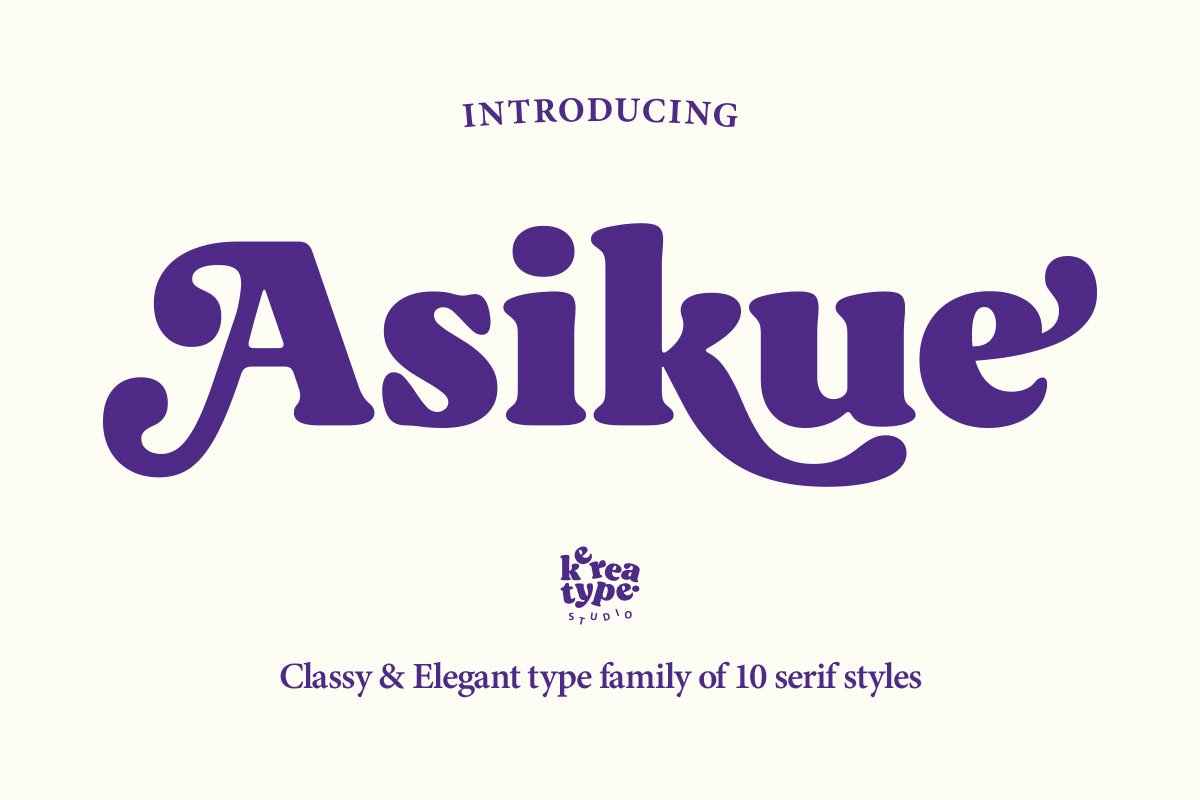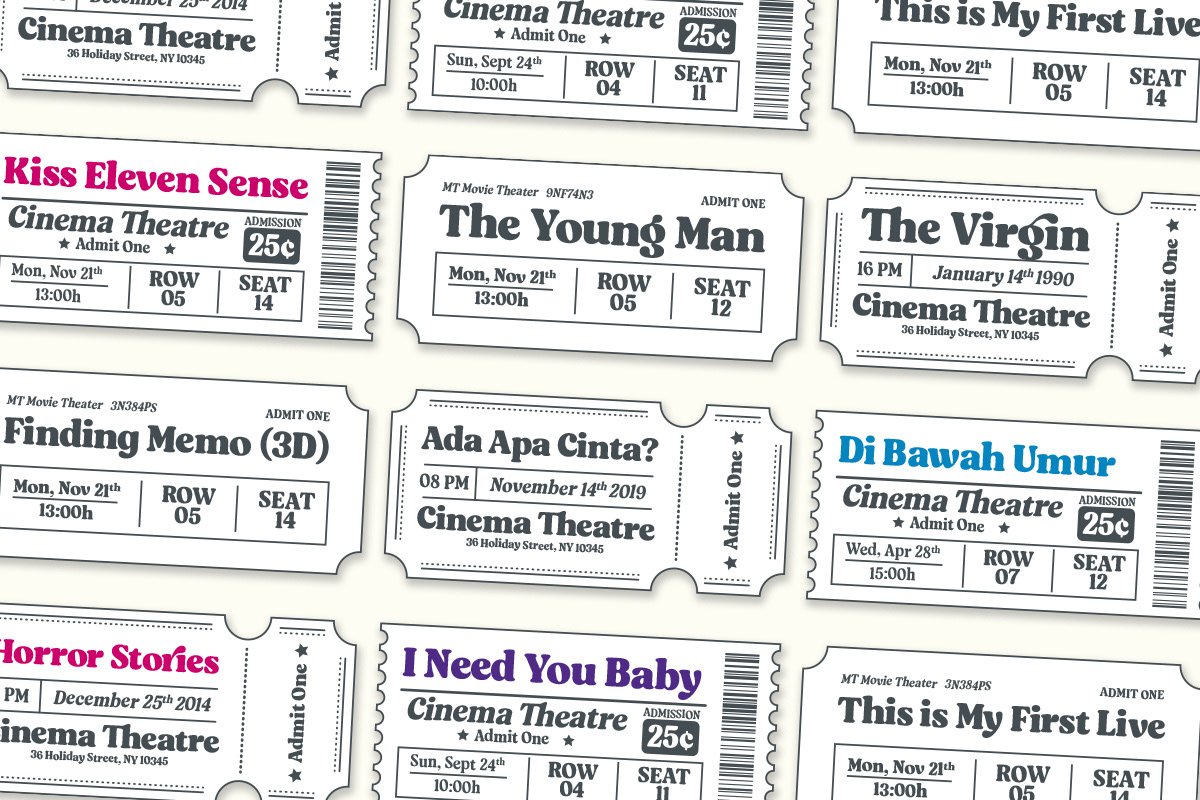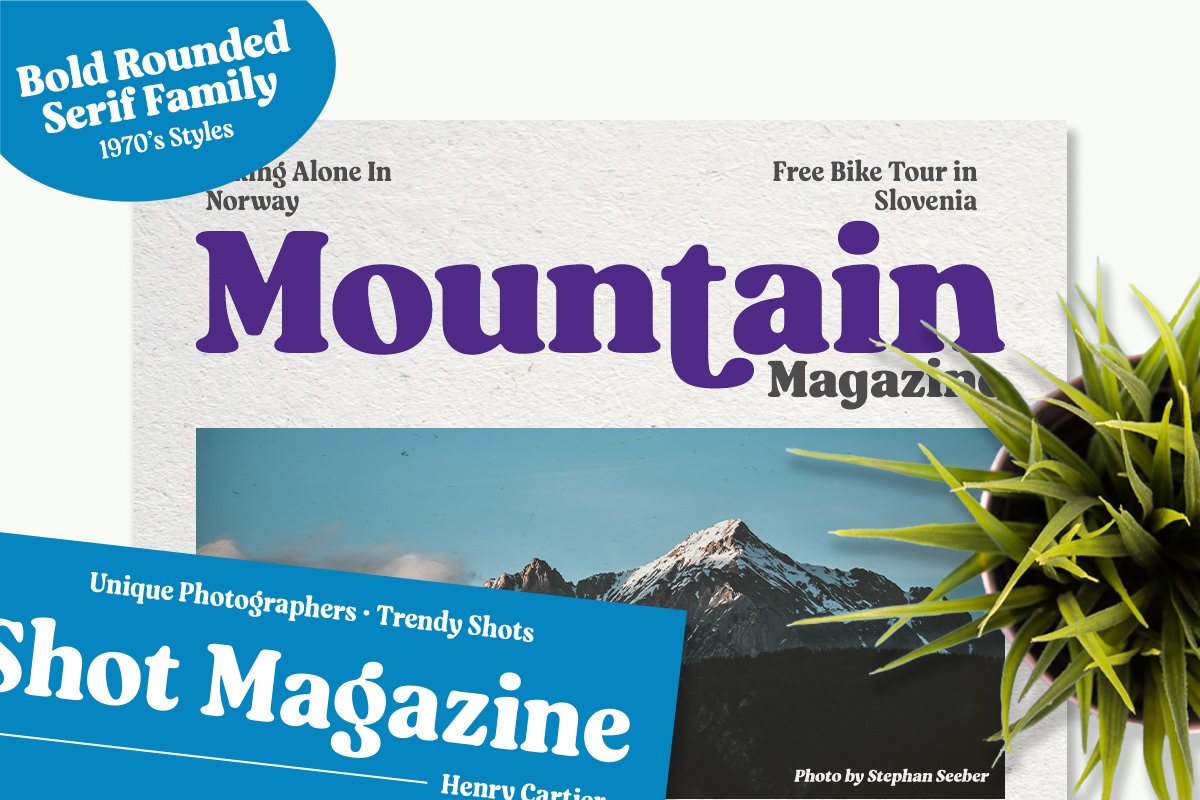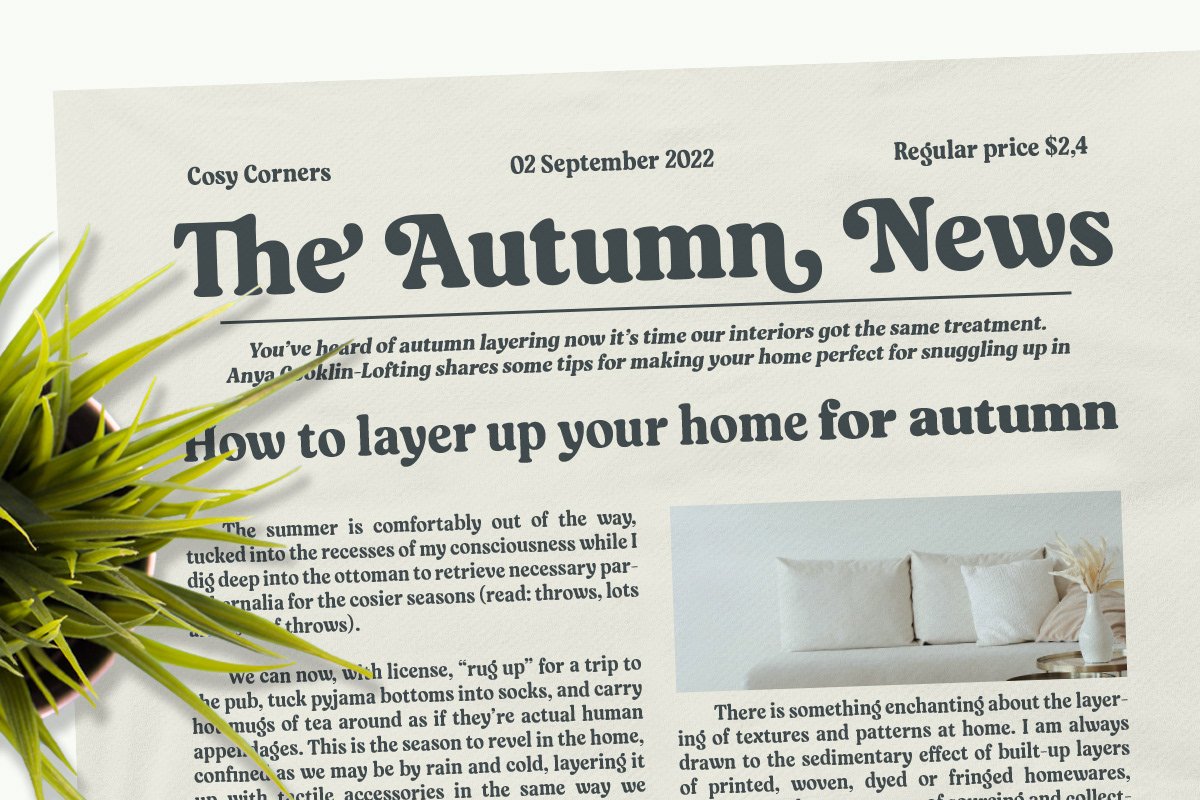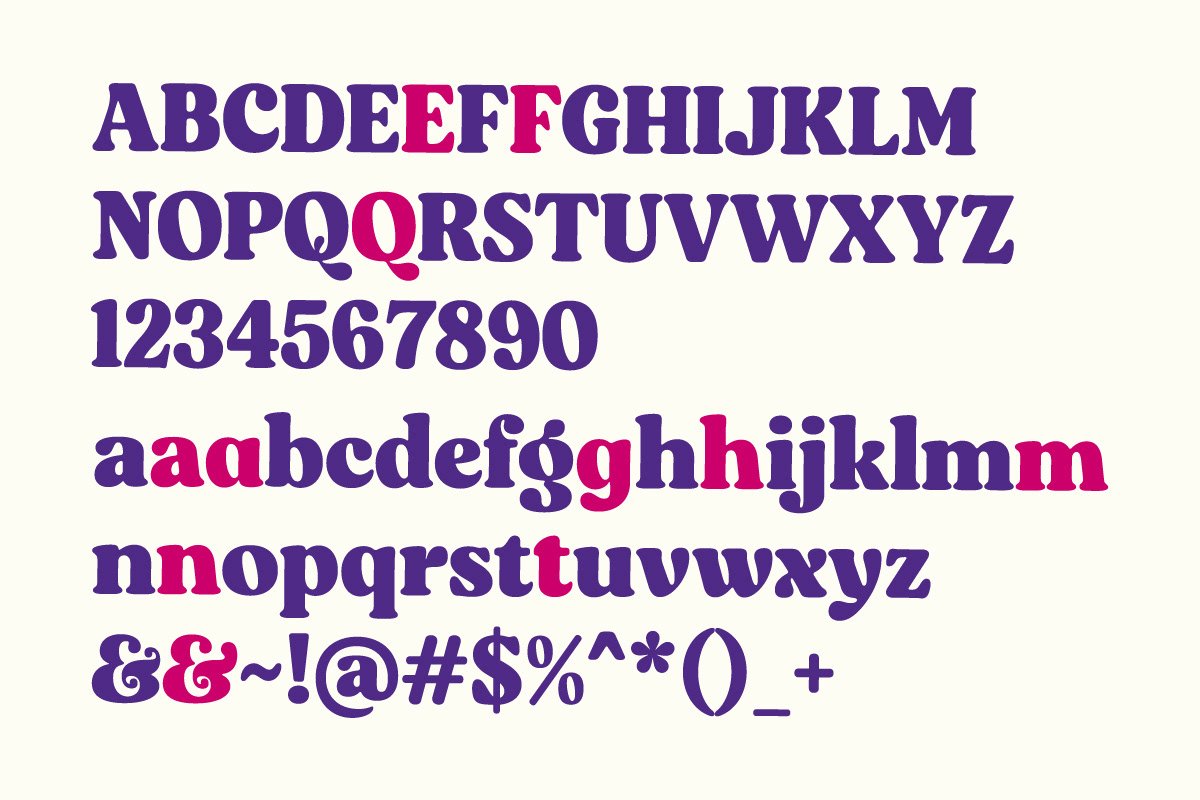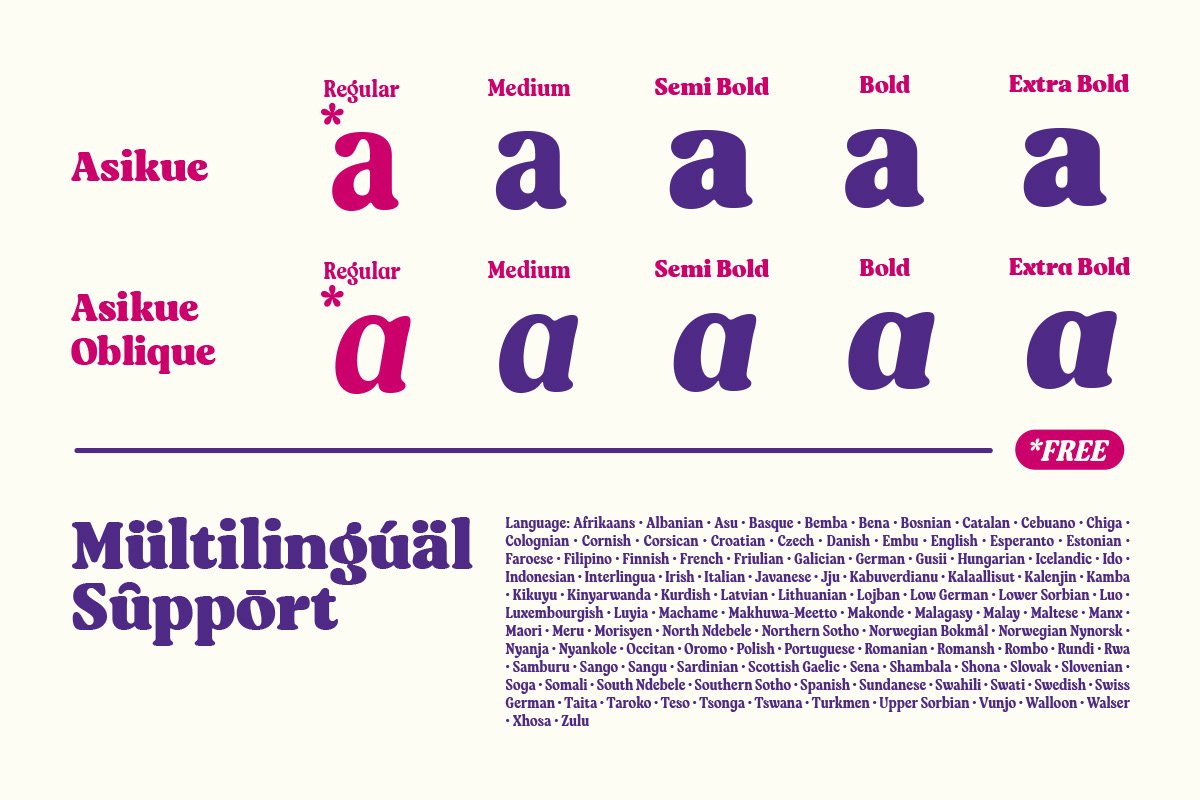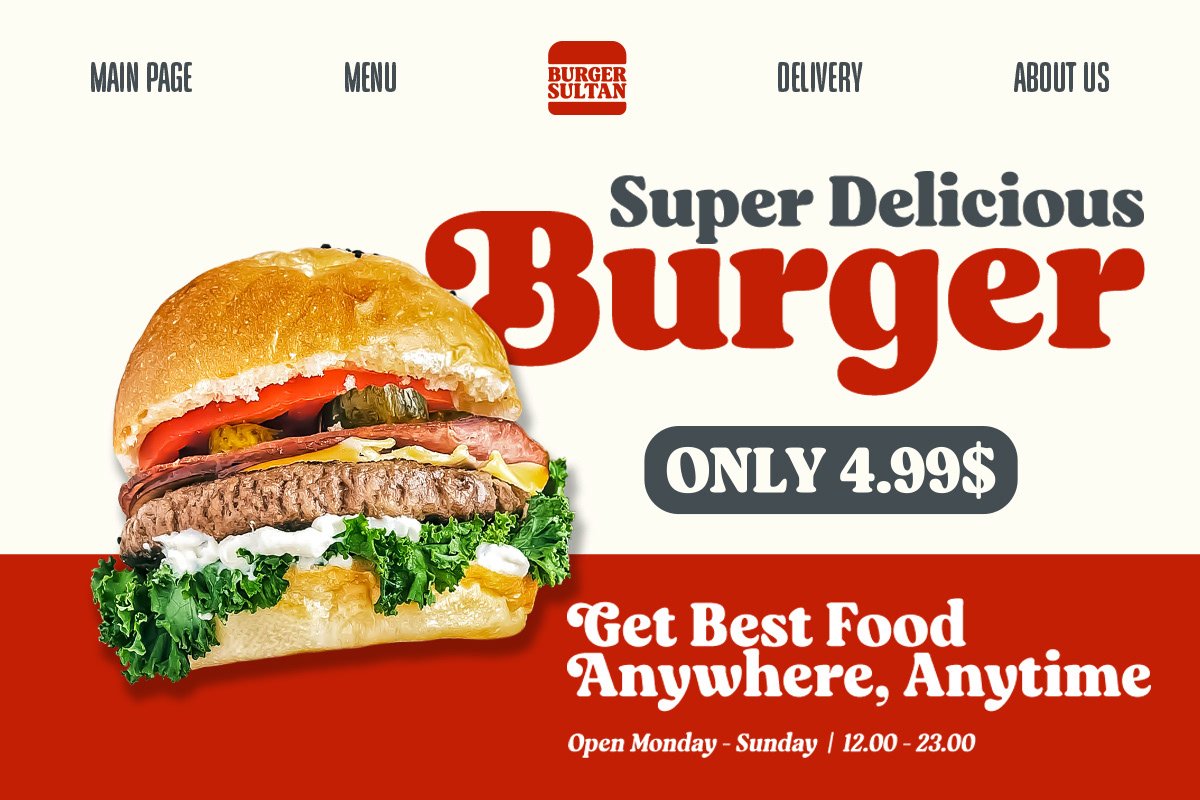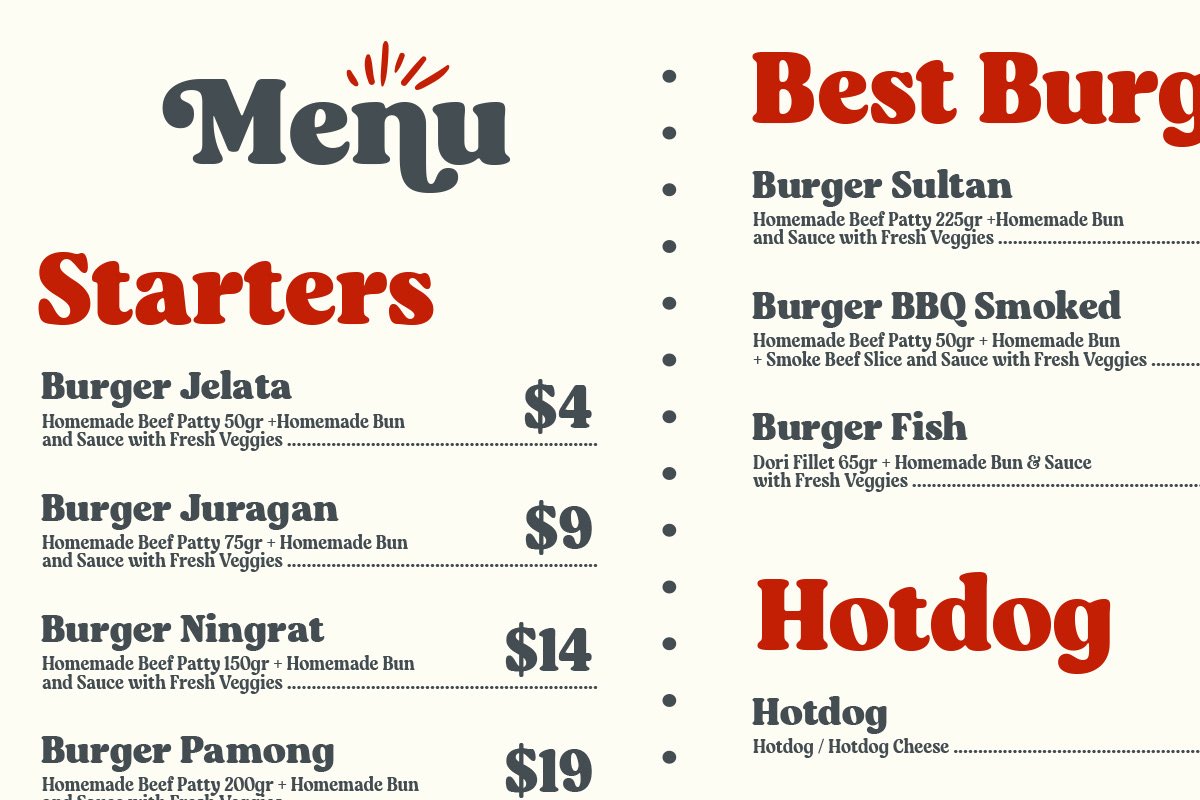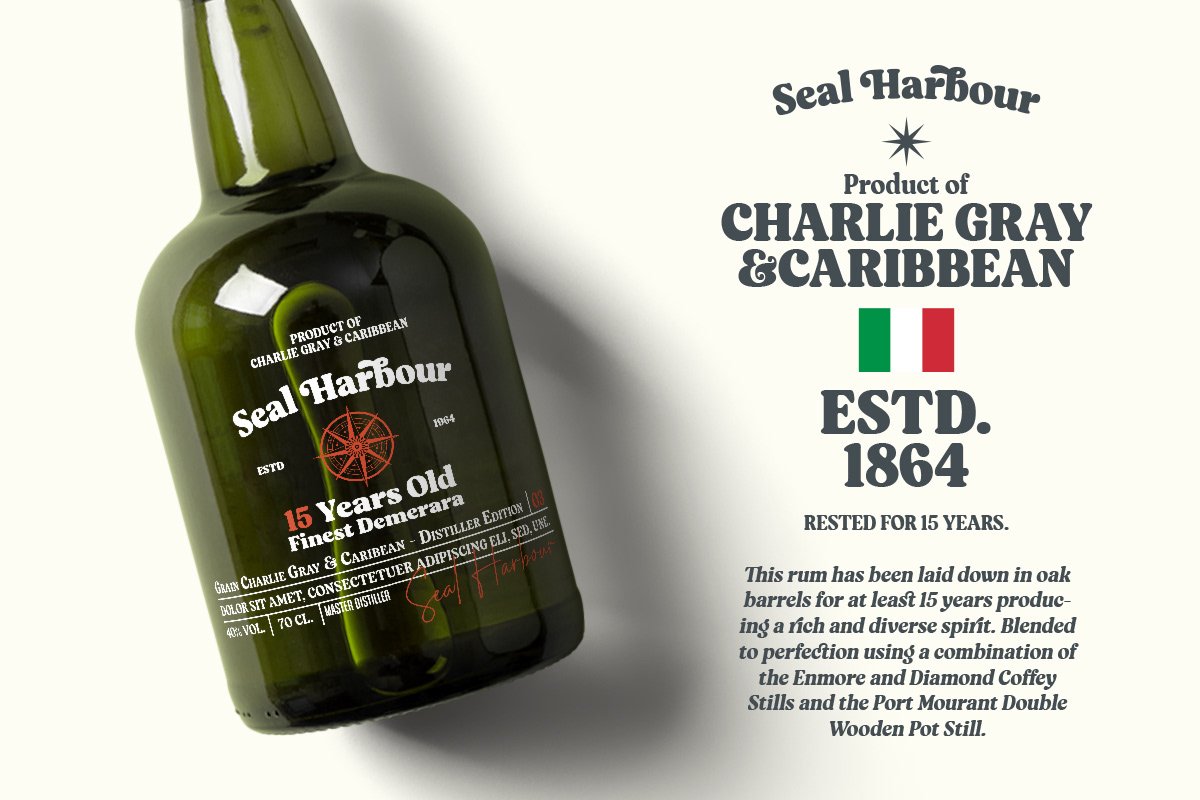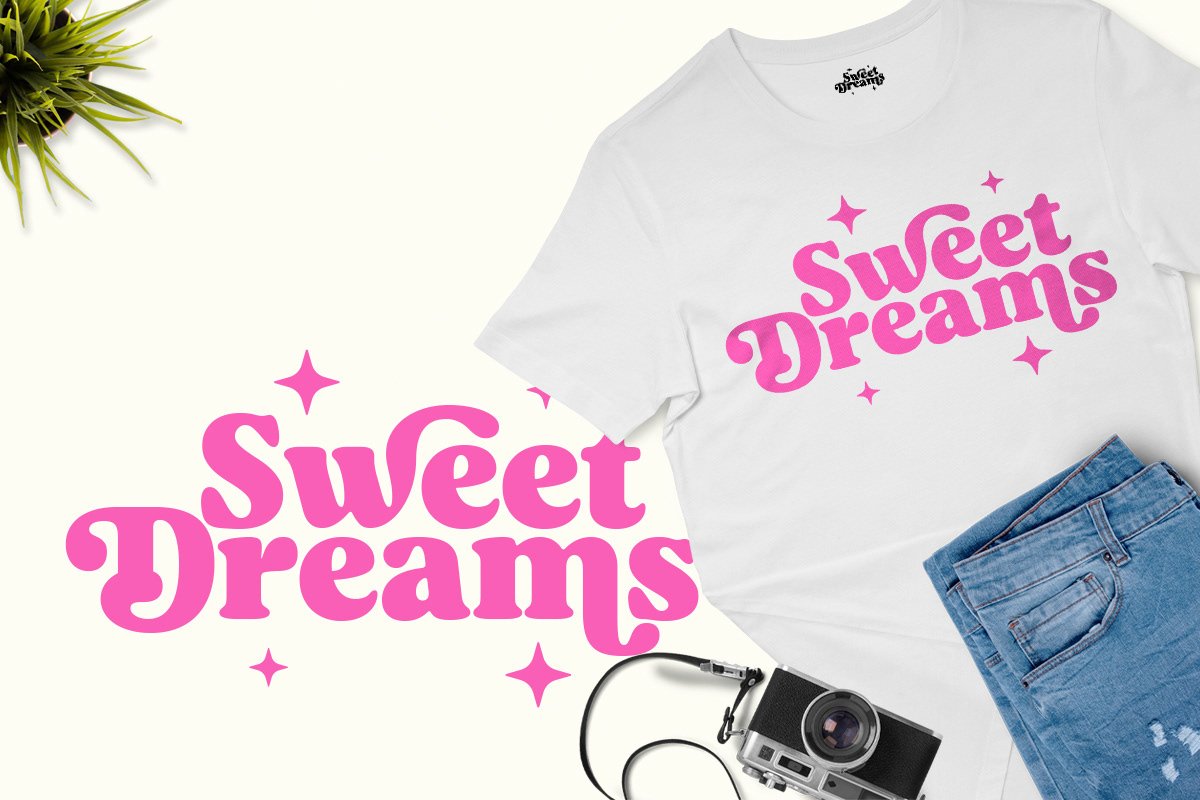
Asikue – Classy Bold Serif Font is a soft serif font family inspired by the 70’s retro styles that bring chunky retro typography to the modern era. It consists of 10 styles from regular to extra bold with each matching oblique. The font includes Opentype features: Alternate, Ligature, Swashes, etc providing you with a variety of beautiful custom text arrangements. Whether it’s a fancy retro-inspired, logo, or engaging bold header text, Asikue can deliver.